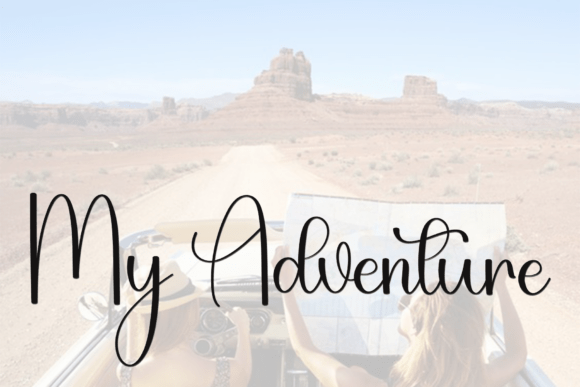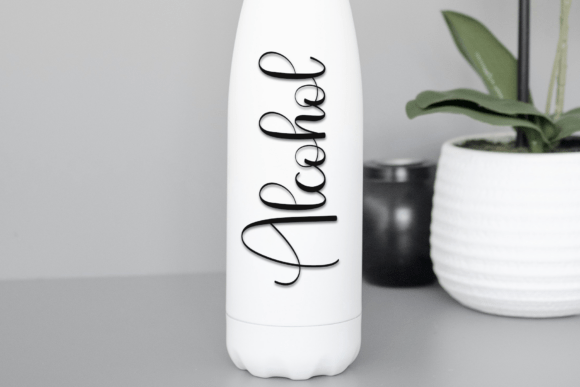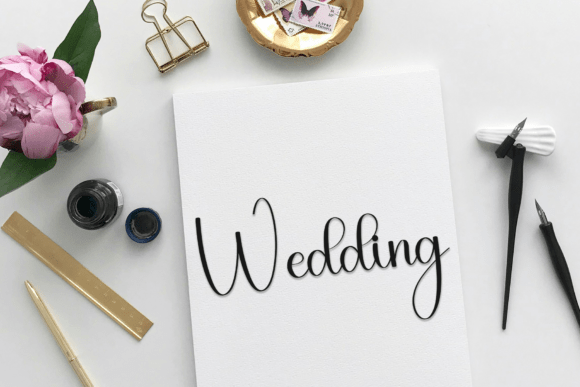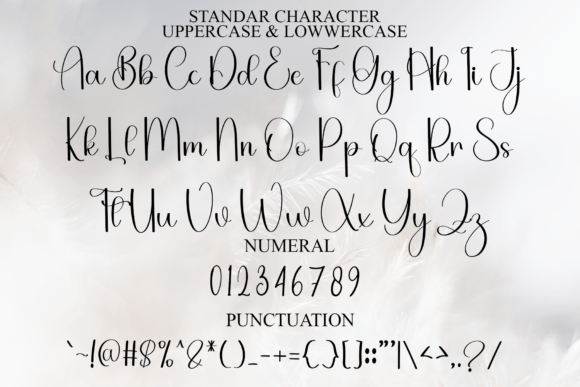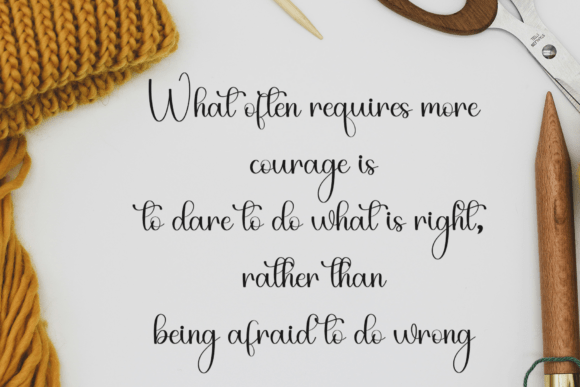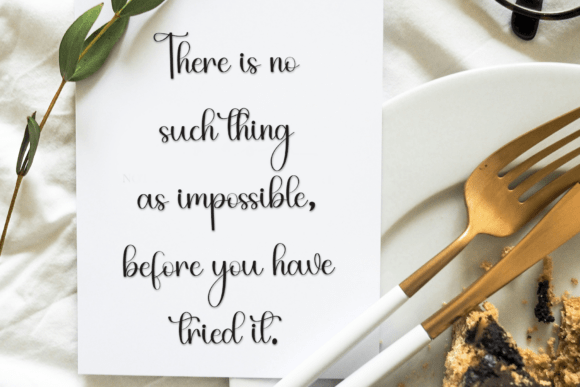
Introducing Adventure Font: Add a Touch of Holiday Magic to Your Designs
Are you looking for a font that captures the essence of the holiday season? Do you want to add a touch of whimsy and enchantment to your designs? Look no further than Adventure Font, a festive and merry typeface that’s perfect for greeting cards, gift tags, and holiday-themed projects.
What is Adventure Font?
Adventure Font is a decorative typeface that’s designed to bring a cheerful and nostalgic ambiance to your words. With its intricate details and whimsical flair, this font is sure to add a touch of magic to your designs. Whether you’re a designer, crafter, or DIY enthusiast, Adventure Font is the perfect choice for anyone looking to create holiday-themed projects that stand out.
Key Features of Adventure Font
- Decorative Elements: Adventure Font features decorative elements that add a touch of elegance and sophistication to your designs.
- Whimsical Flair: The font’s whimsical flair gives it a playful and festive feel that’s perfect for holiday-themed projects.
- PUA Encoded: Adventure Font is PUA encoded, which means you can access all of the amazing glyphs and ligatures with ease.
- Multilingual Support: The font supports multiple languages, making it perfect for designers and crafters around the world.
Uses for Adventure Font
Adventure Font is perfect for a variety of holiday-themed projects, including:
- Greeting Cards: Create beautiful and unique greeting cards for friends and family.
- Gift Tags: Add a personal touch to your gifts with custom gift tags featuring Adventure Font.
- Holiday-Themed Projects: Use Adventure Font to create festive and fun projects, such as holiday-themed planners, journals, and scrapbook pages.
- Social Media Graphics: Add a touch of holiday cheer to your social media graphics with Adventure Font.
Tips for Using Adventure Font
Here are a few tips for getting the most out of Adventure Font:
- Experiment with Different Sizes: Adventure Font looks great in a variety of sizes, so don’t be afraid to experiment to find the perfect size for your project.
- Pair with Other Fonts: Adventure Font pairs well with other fonts, so try pairing it with a sans-serif font for a fun and modern look.
- Use the Glyphs and Ligatures: Take advantage of the font’s PUA encoding to access the amazing glyphs and ligatures that make Adventure Font so special.
Why Choose Adventure Font?
There are many fonts to choose from, but Adventure Font stands out for several reasons:
- Unique and Festive: Adventure Font is a unique and festive typeface that’s sure to add a touch of holiday cheer to your designs.
- High-Quality Design: The font is designed with high-quality craftsmanship, ensuring that it looks great in a variety of sizes and applications.
- Easy to Use: Adventure Font is easy to use, even for designers and crafters who are new to working with fonts.
Adventure Font is a beautiful and festive typeface that’s perfect for holiday-themed projects. With its decorative elements, whimsical flair, and PUA encoding, this font is sure to add a touch of magic to your designs. Whether you’re a designer, crafter, or DIY enthusiast, Adventure Font is a great choice for anyone looking to create unique and festive holiday projects.